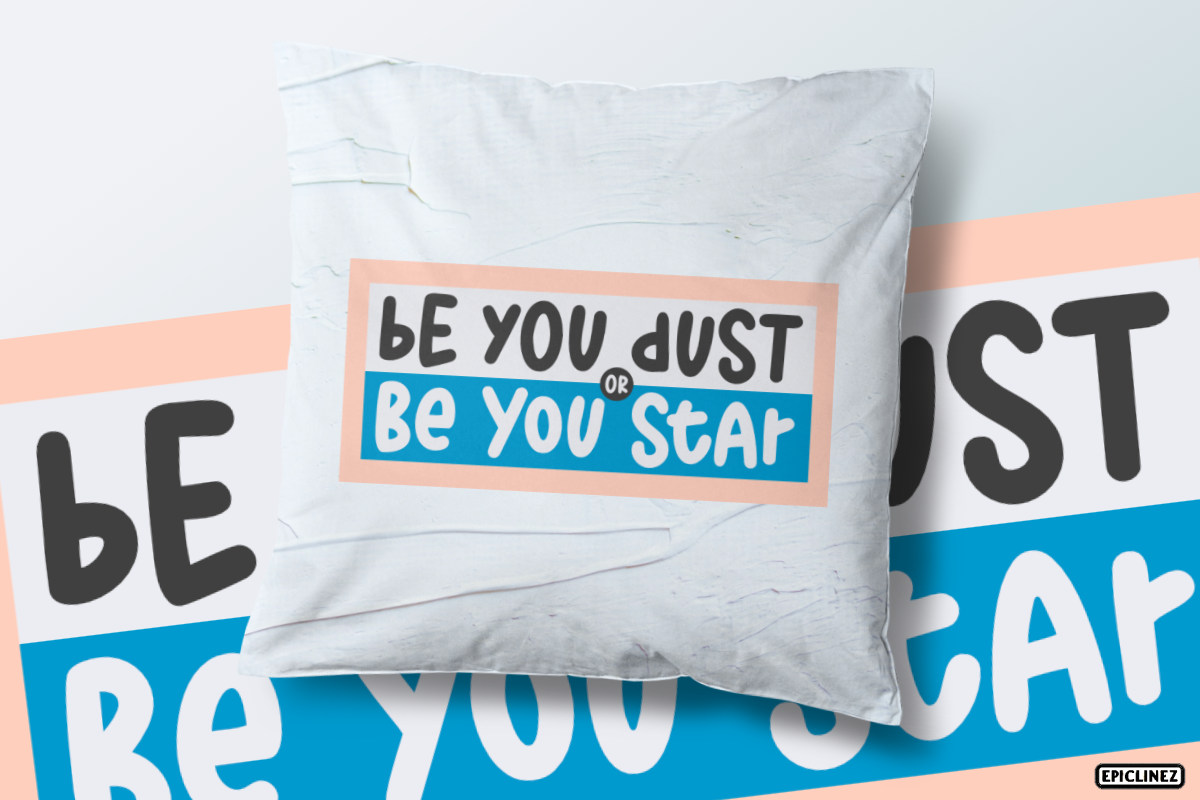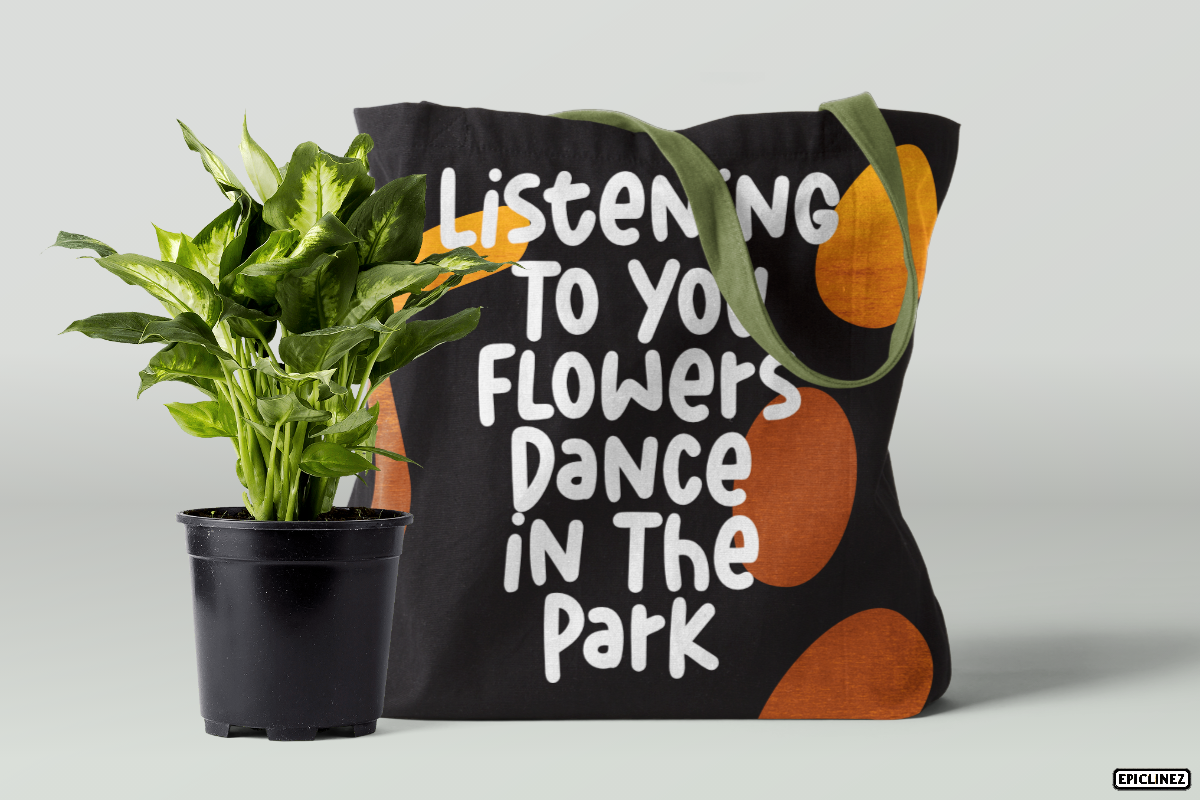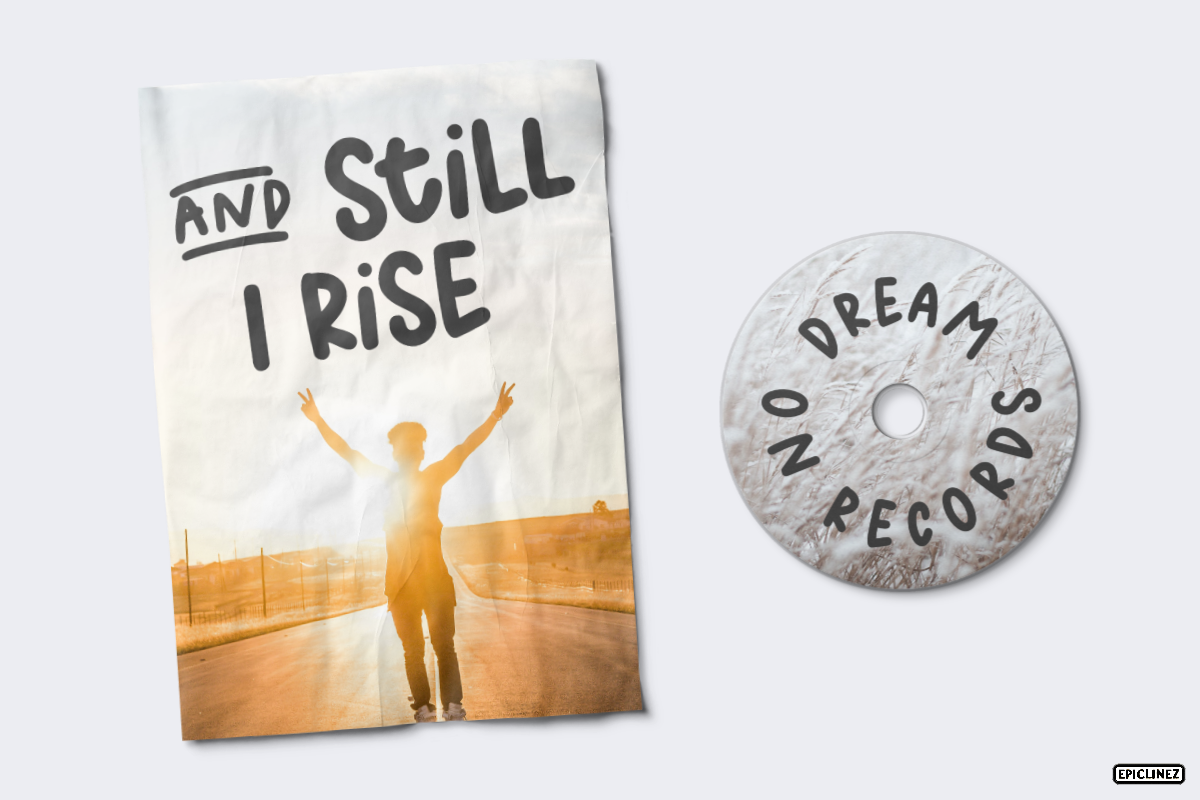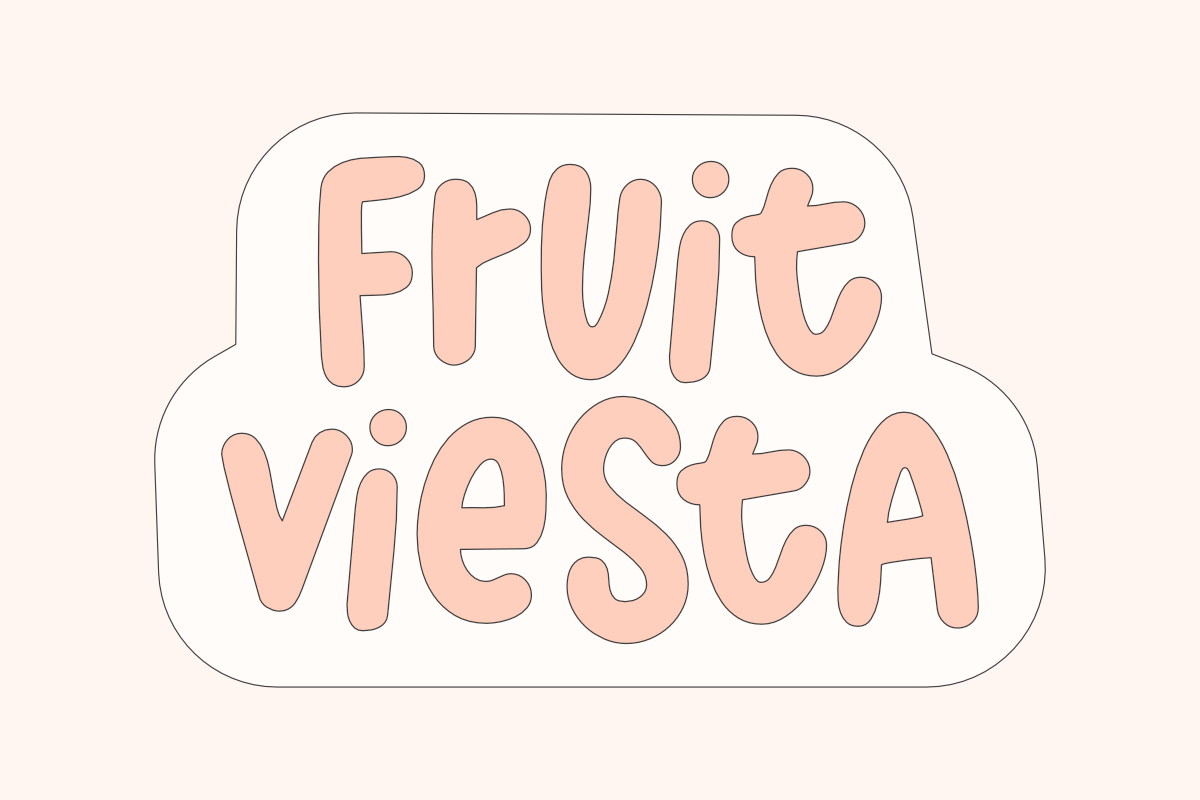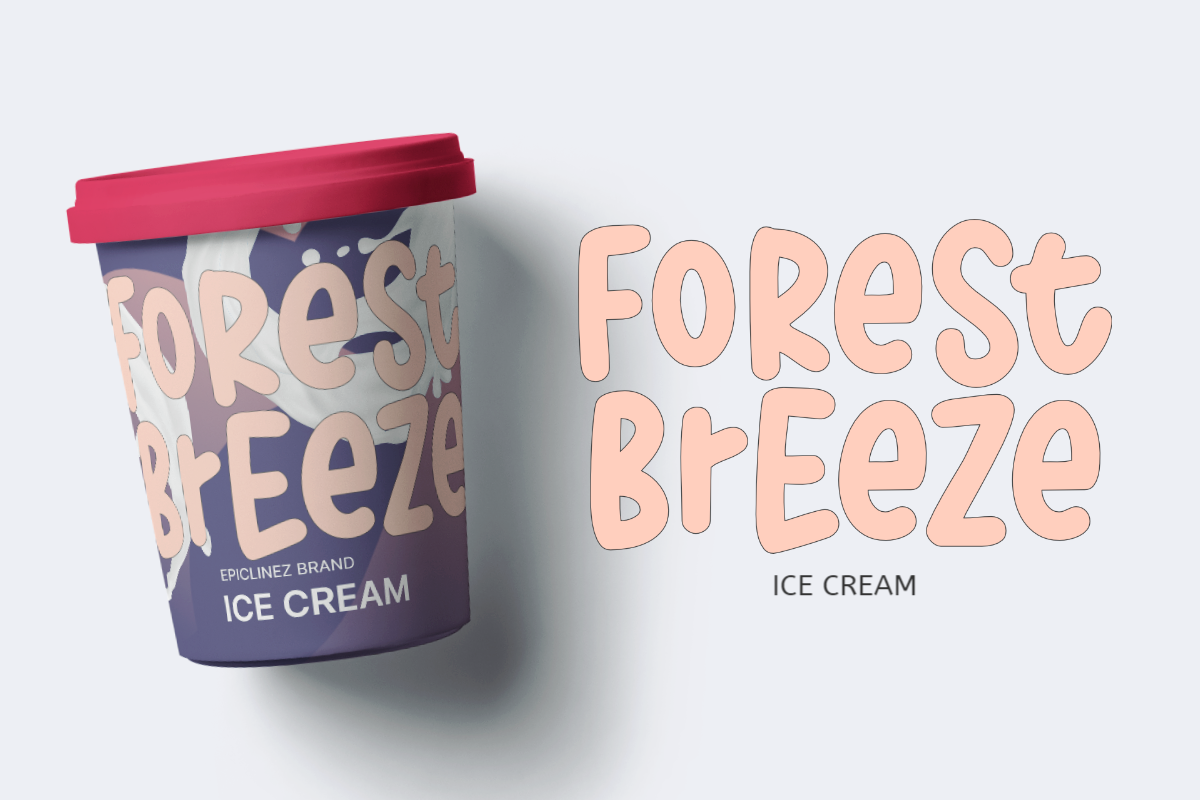
Fruit Viesta | A Fun Font
Fruit Viesta is a bold and fun display font. Whether you're using it for crafting, digital designing, or even school project, it's lovely! Fruit Viesta contains 199 glyphs. Supporting more than 67 languages, from English to Zulu.